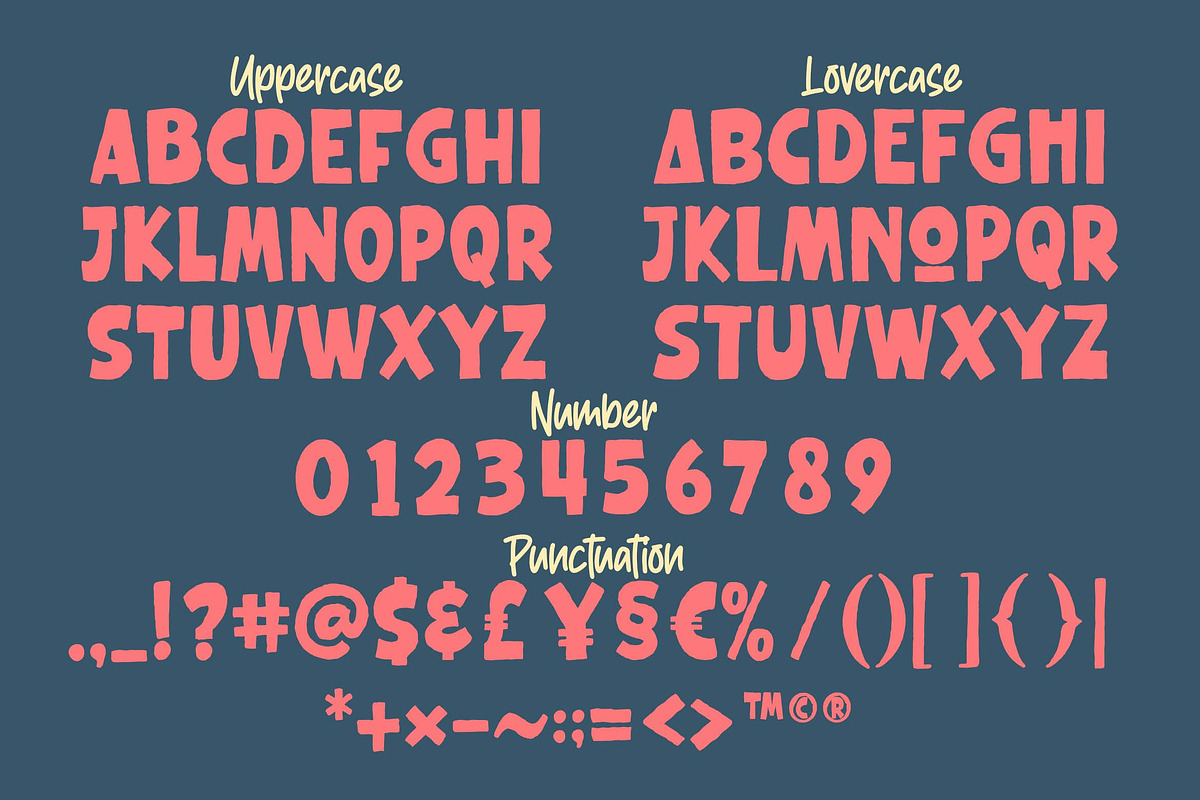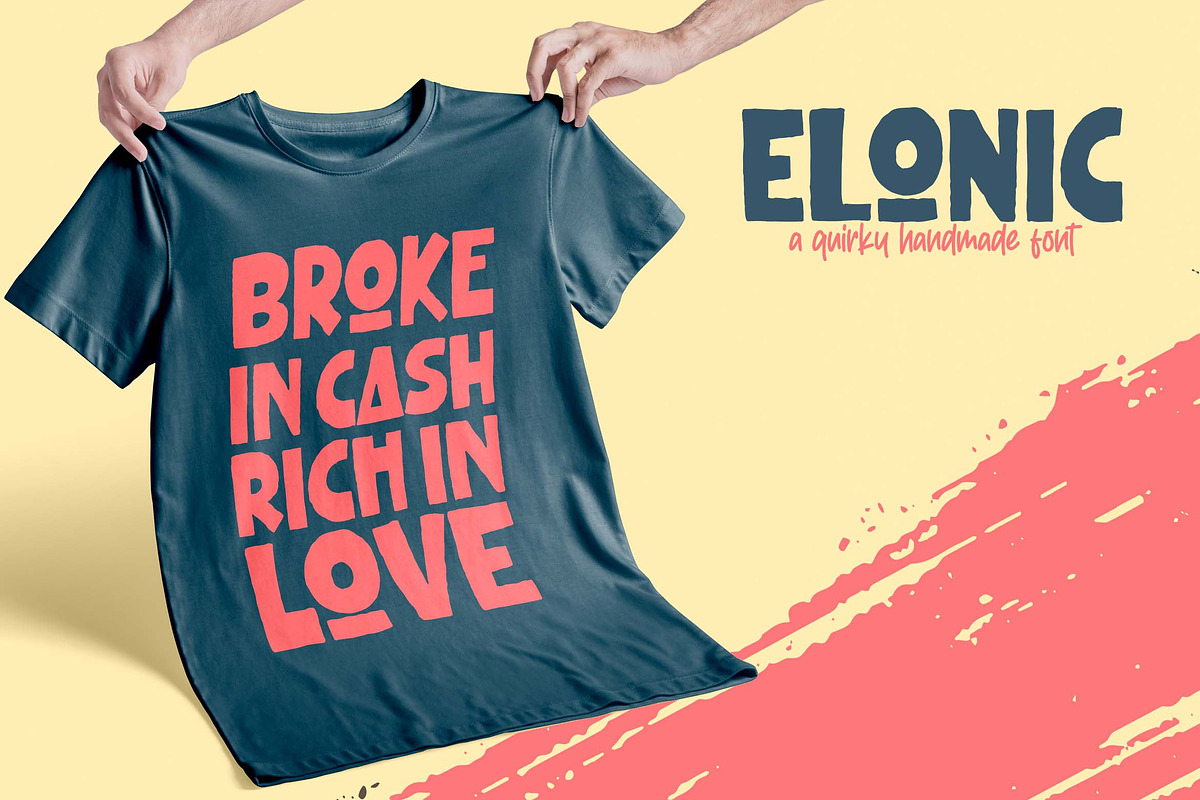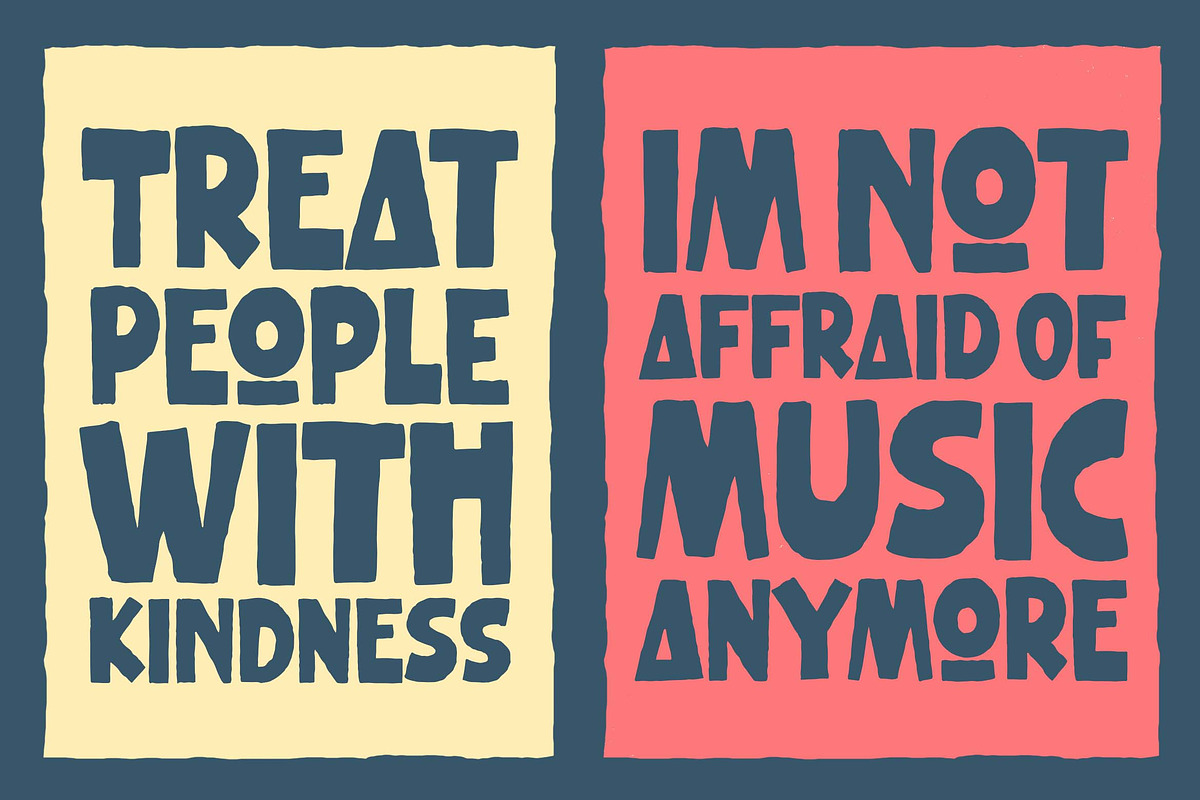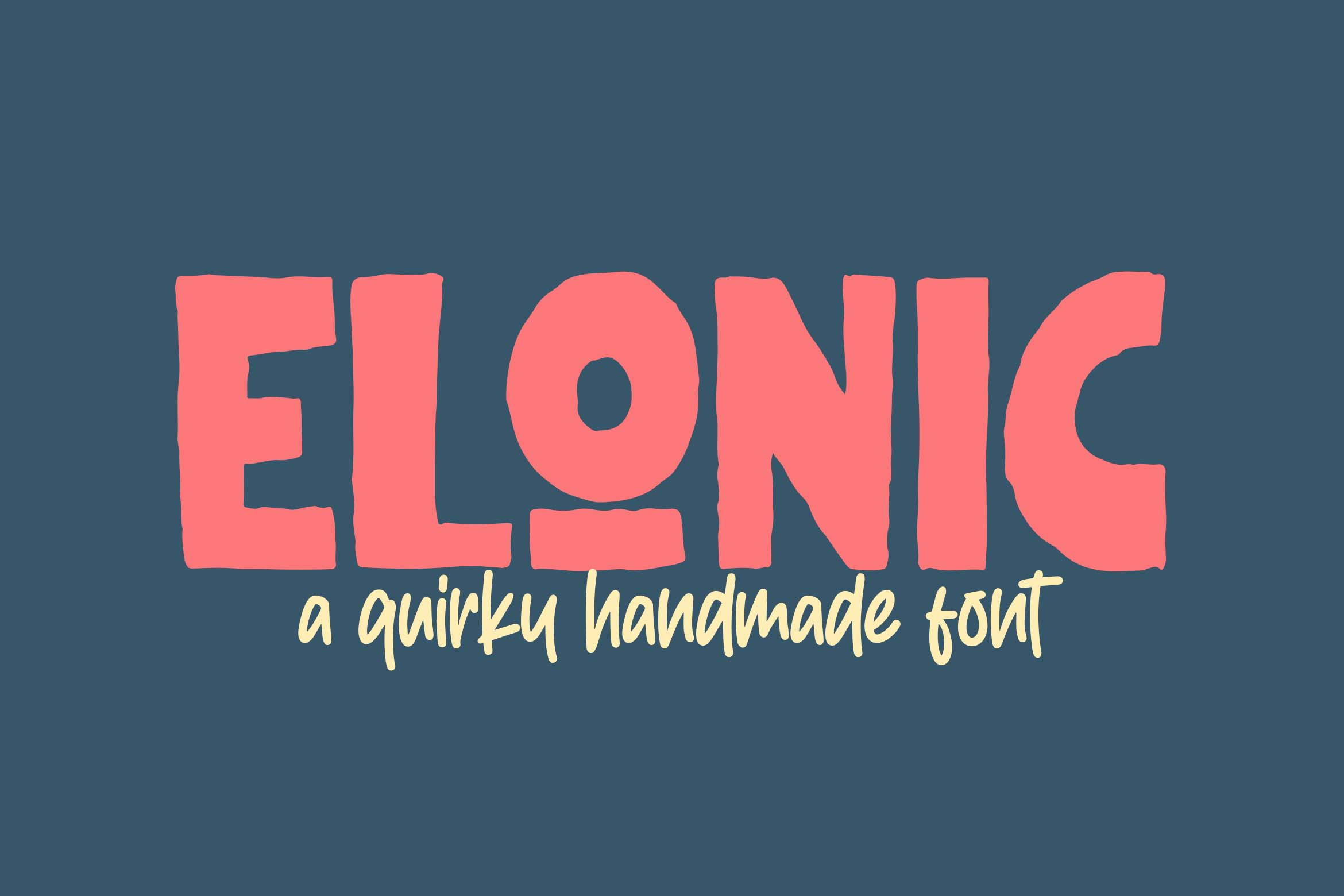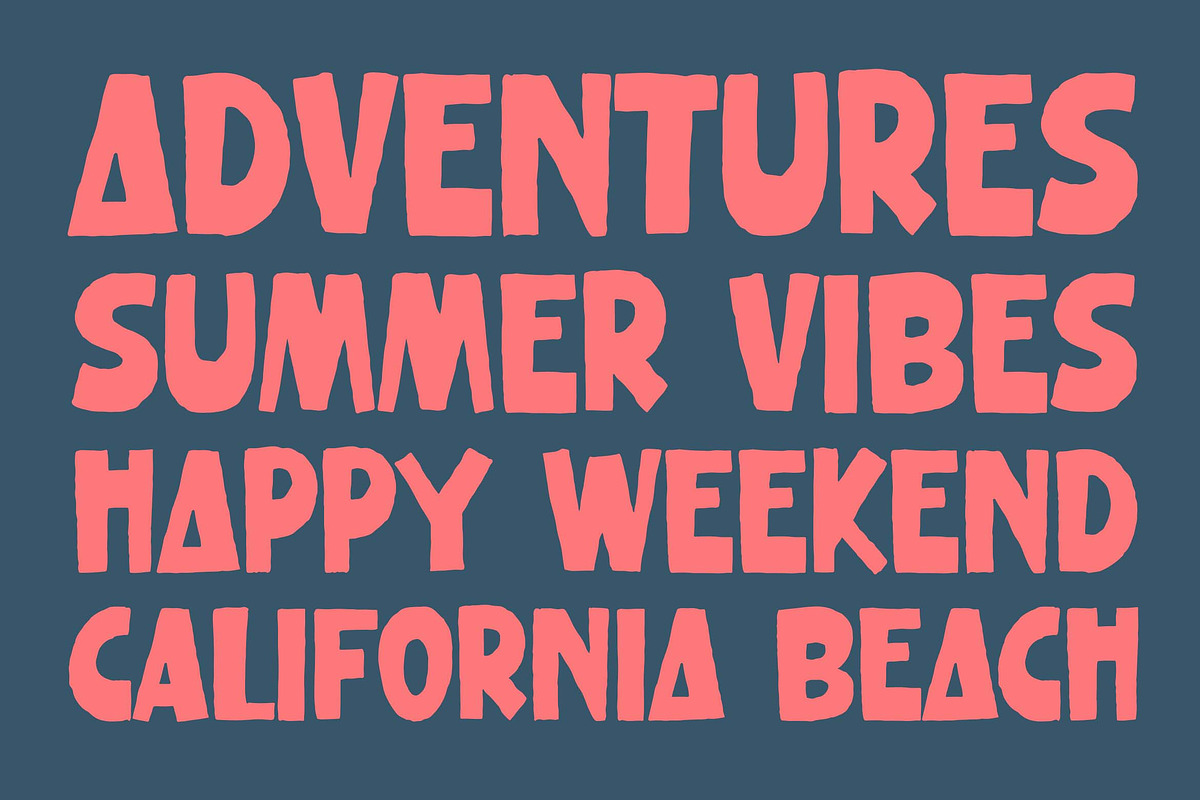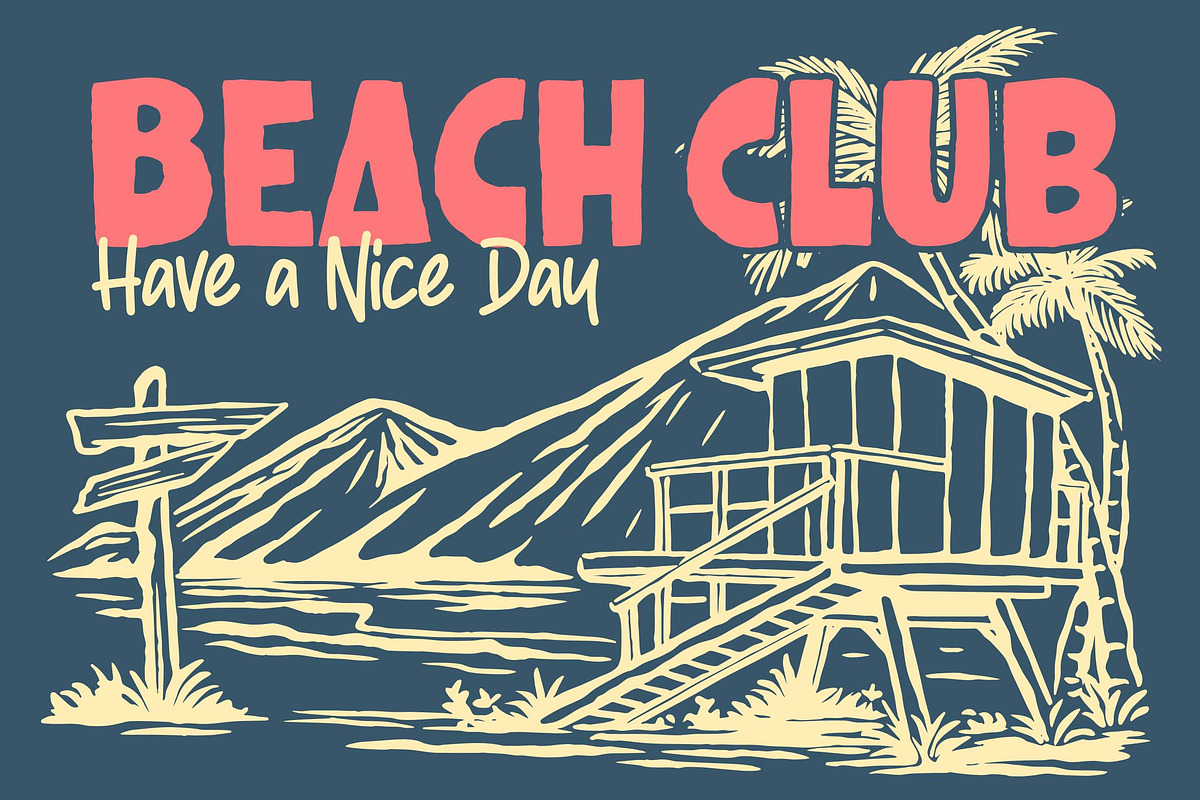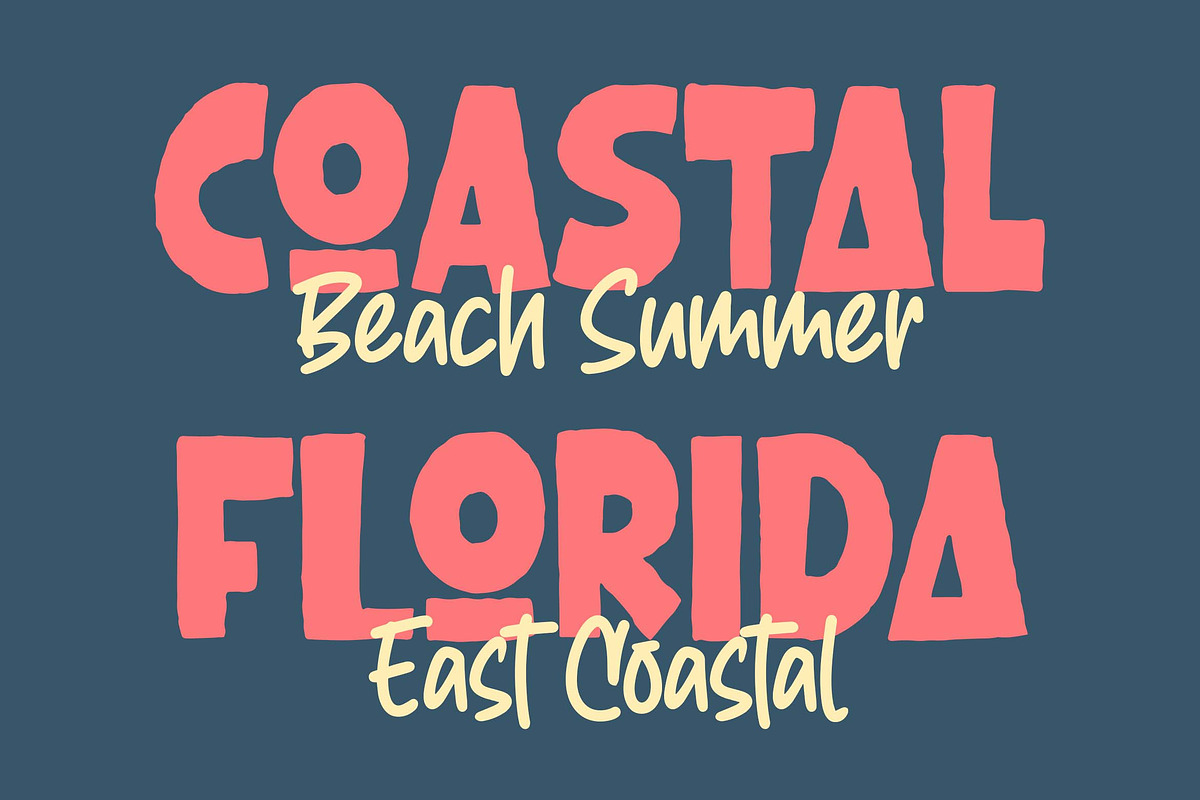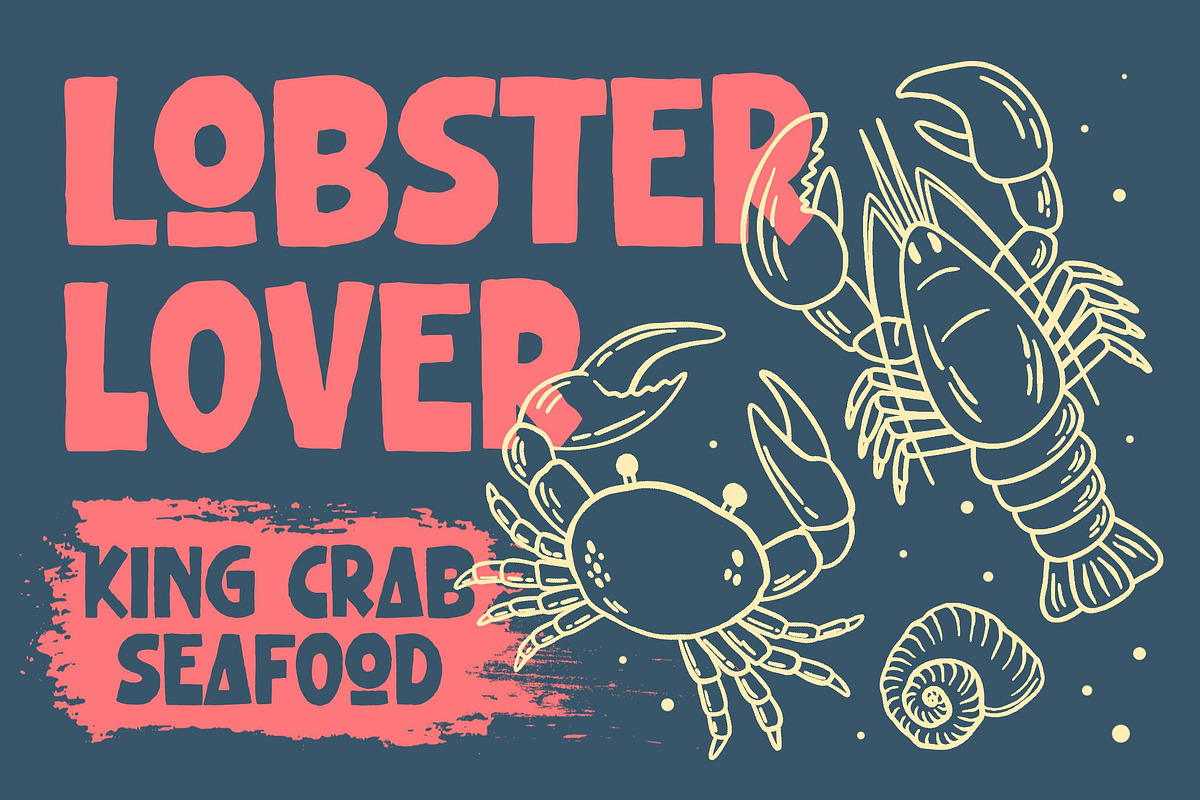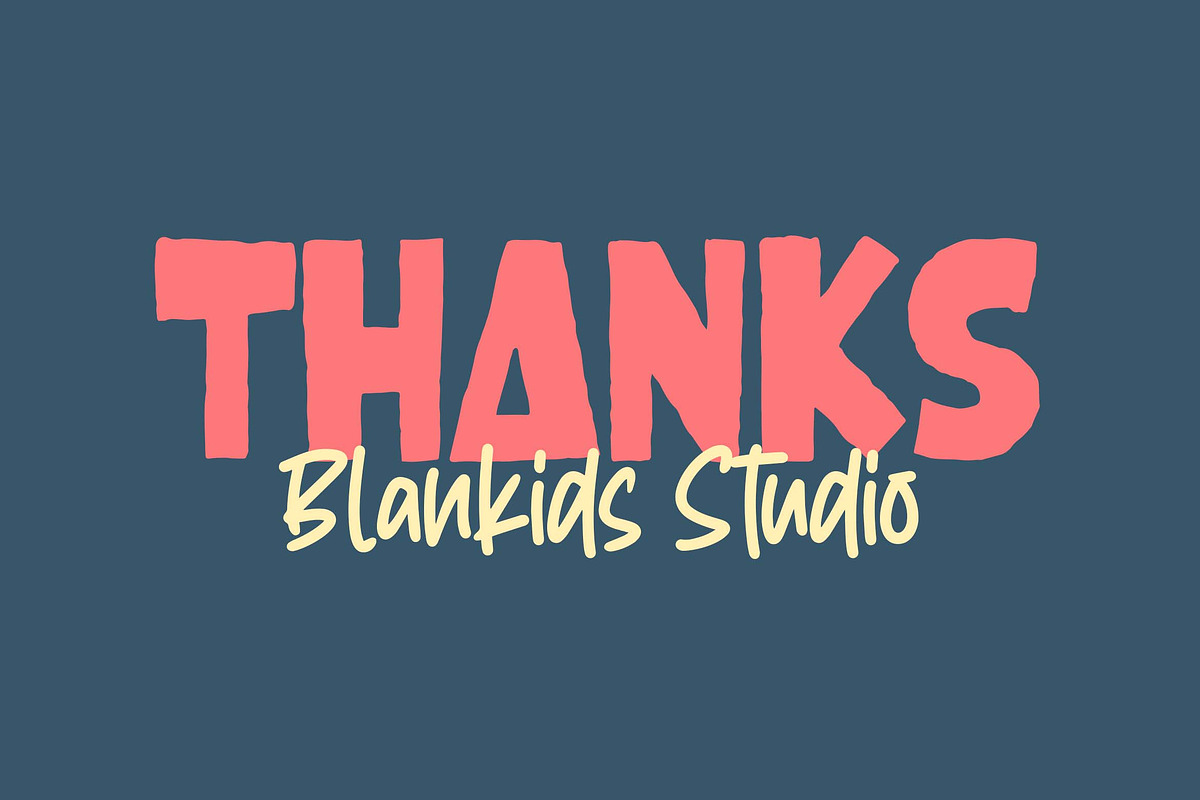
Elonic a Quirky Handmade Font
Hello, awesome people! This time, we have a new font called Elonic a Quirky Handmade Font by Blankids Studio.
Elonic a Quirky Handmade Font is made for any professional project branding, such as logotype, watermarks, poster, branding, promotions, product packaging, etc. Every letter has a quirky style design. This font comes in Otf. and Ttf. files.
Elonic font includes a full set of quirky uppercase and lowercase letters, numerals and punctuation. This font has a quirky style. See the previews above to get some inspiration on how to use them. Happy designing!